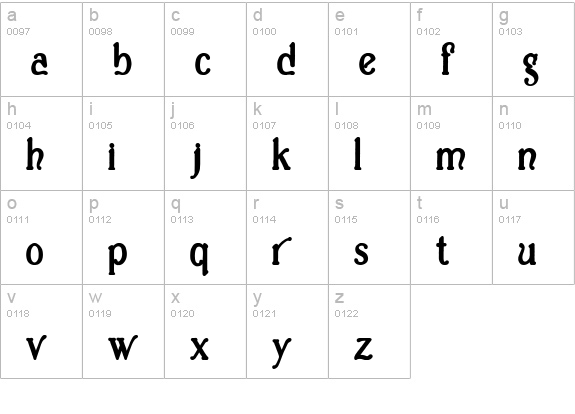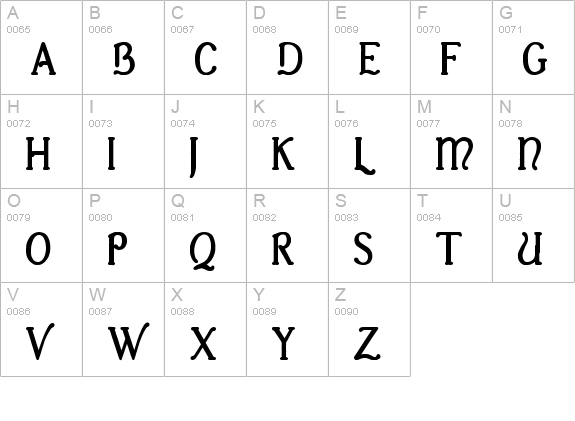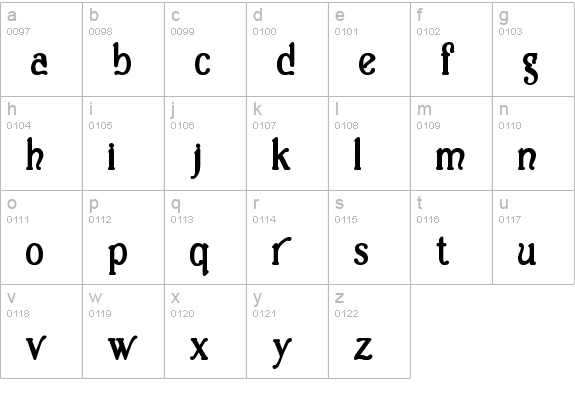
Casua_Bold Font Details
Casua_Bold is a modern and stylish font that exudes confidence and sophistication. Its bold and legible design makes it perfect for a wide range of design projects, from branding to advertising to social media graphics. The clean lines and strong presence of Casua_Bold will make your text stand out and grab attention. What's even better is that Casua_Bold is available for free download at FontsMarket.com. This means you can easily access this versatile font and use it in your projects without any cost. Whether you're a designer looking to enhance your creations or a business owner in need of a fresh look for your branding, Casua_Bold is the perfect choice. Download it today and elevate your designs with this elegant and impactful font.